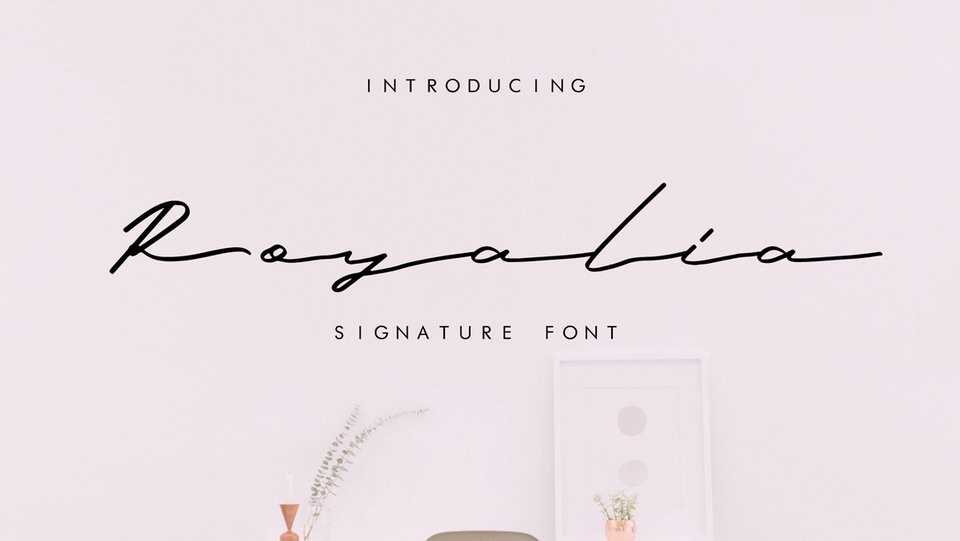
Download Royalia font, an elegant and stylish signature script with wide strokes. Great for personal branding, fashion magazines, social media, letters and cards and more.
Designer: Typefar co